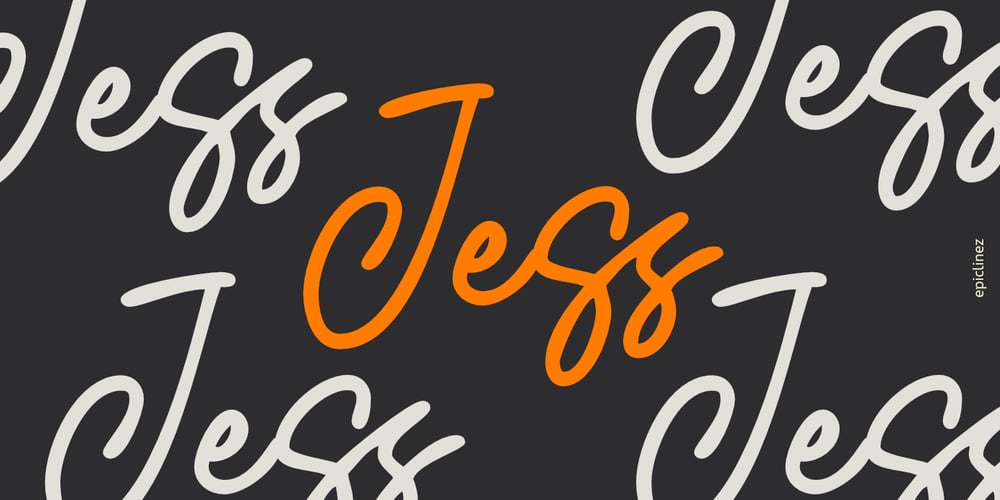
Jess Font Family was designed by Aldy Sidik and published by Epiclinez. Jess contains 1 styles and family package options. Jess is an authentic stylish script font. This handwritten beauty is suitable for high-end, sophisticated branding or for simple, memorable Instagram quotes.